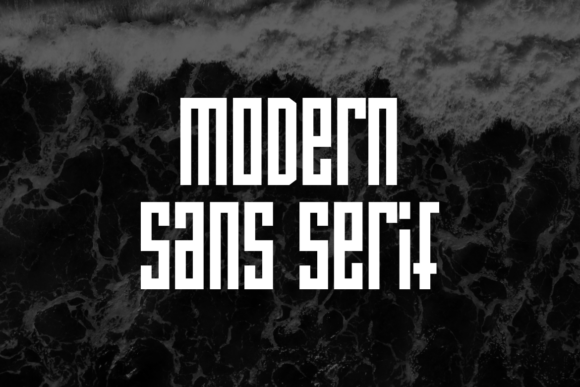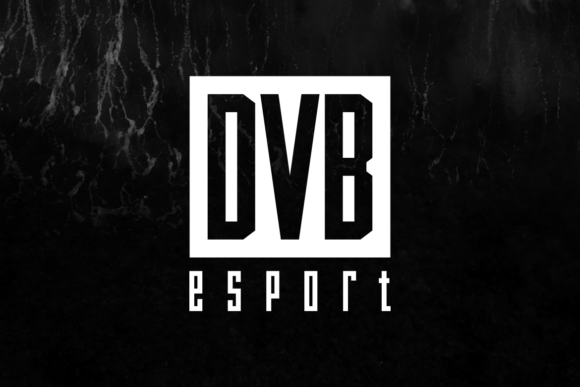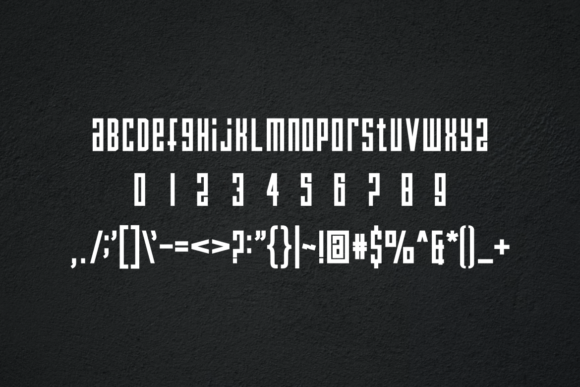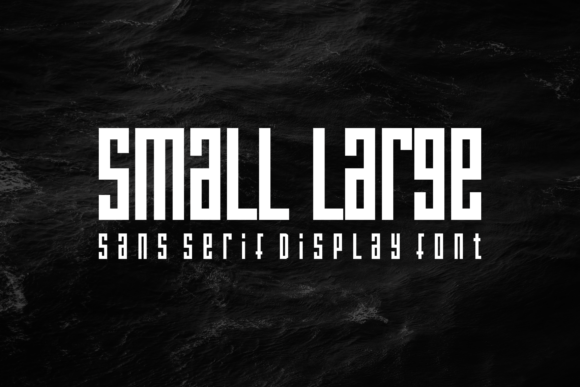
Introduction to Small Large Font
Small Large is a bold and striking sans-serif display font that combines geometric precision with a modern edge.
Its tall, narrow letterforms create a commanding presence, making it perfect for headlines, posters, logos, and branding projects With its futuristic and minimalist style, Small Large is ideal for tech-inspired designs, urban themes, or any project that demands attention and impact.